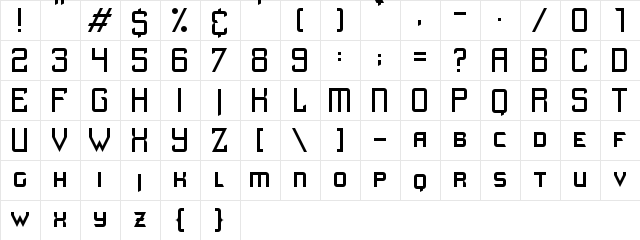
Quick Junky Regular
| Designer | leniklenik |
Design Context for Quick Junky Typeface
Quick Junky offers clean, dependable letterforms without strong stylistic allegiance, making it a practical choice for designers who need flexibility.
Pro Tip: Pair Quick Junky with a font of contrasting weight or personality to build a more expressive typographic hierarchy.